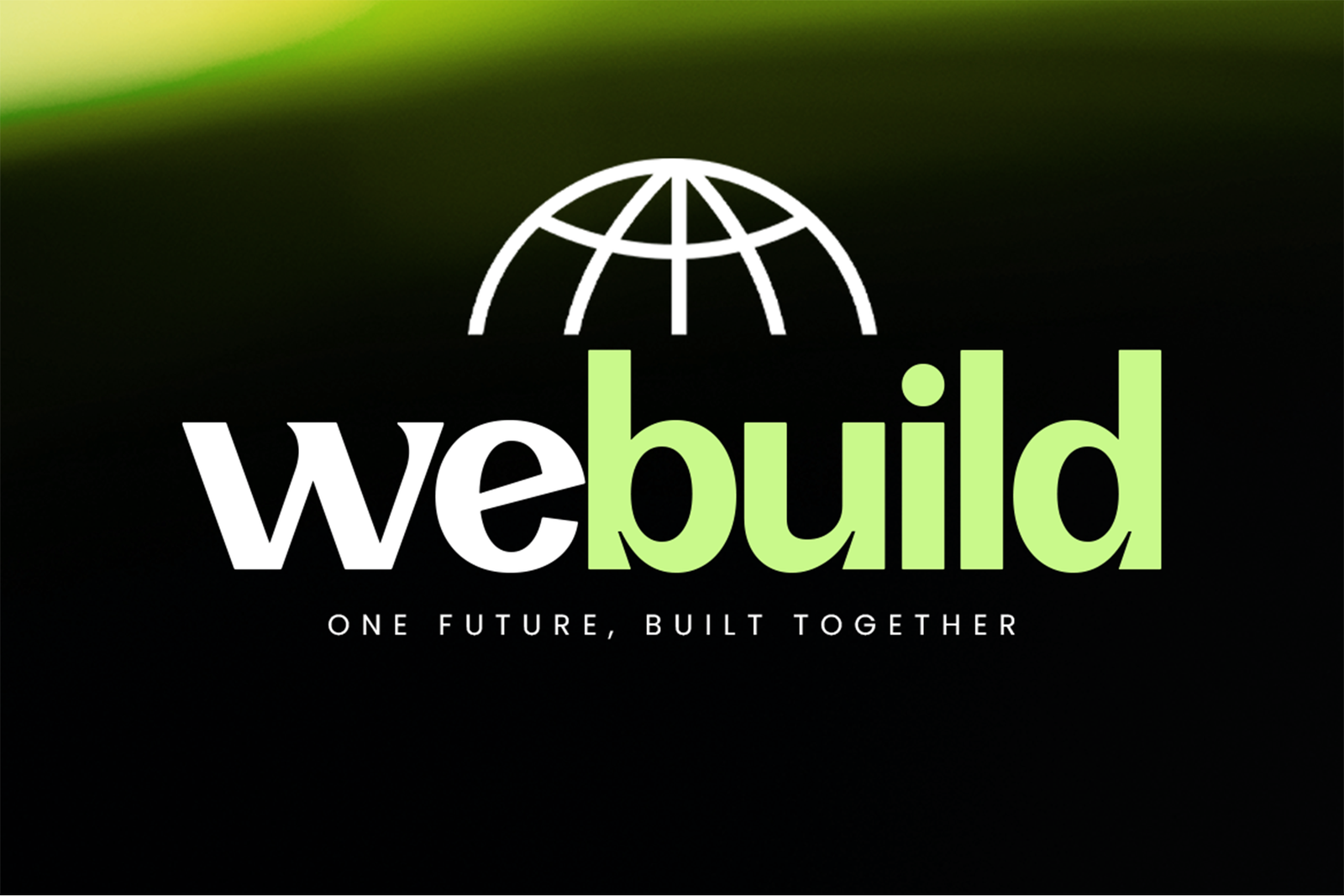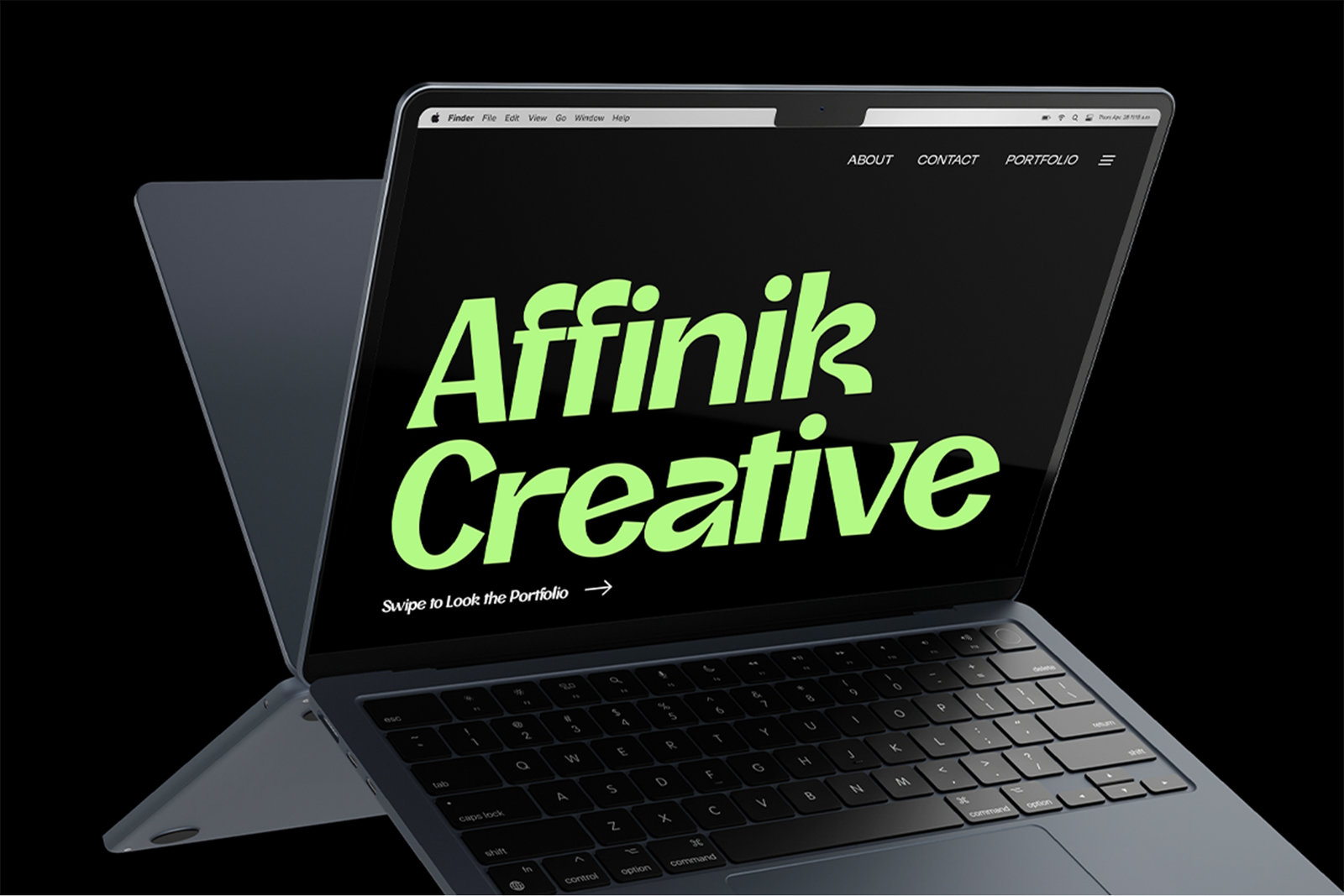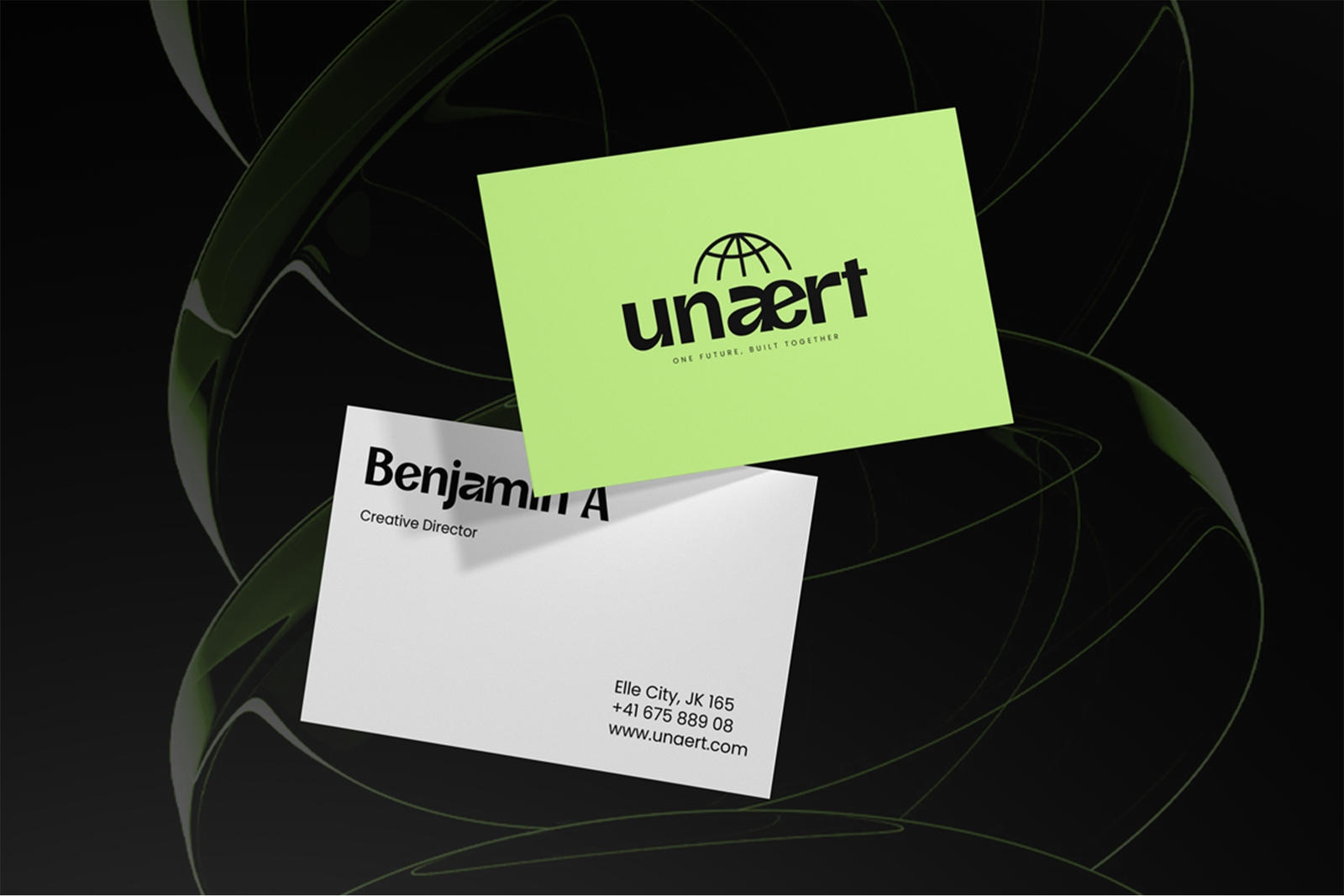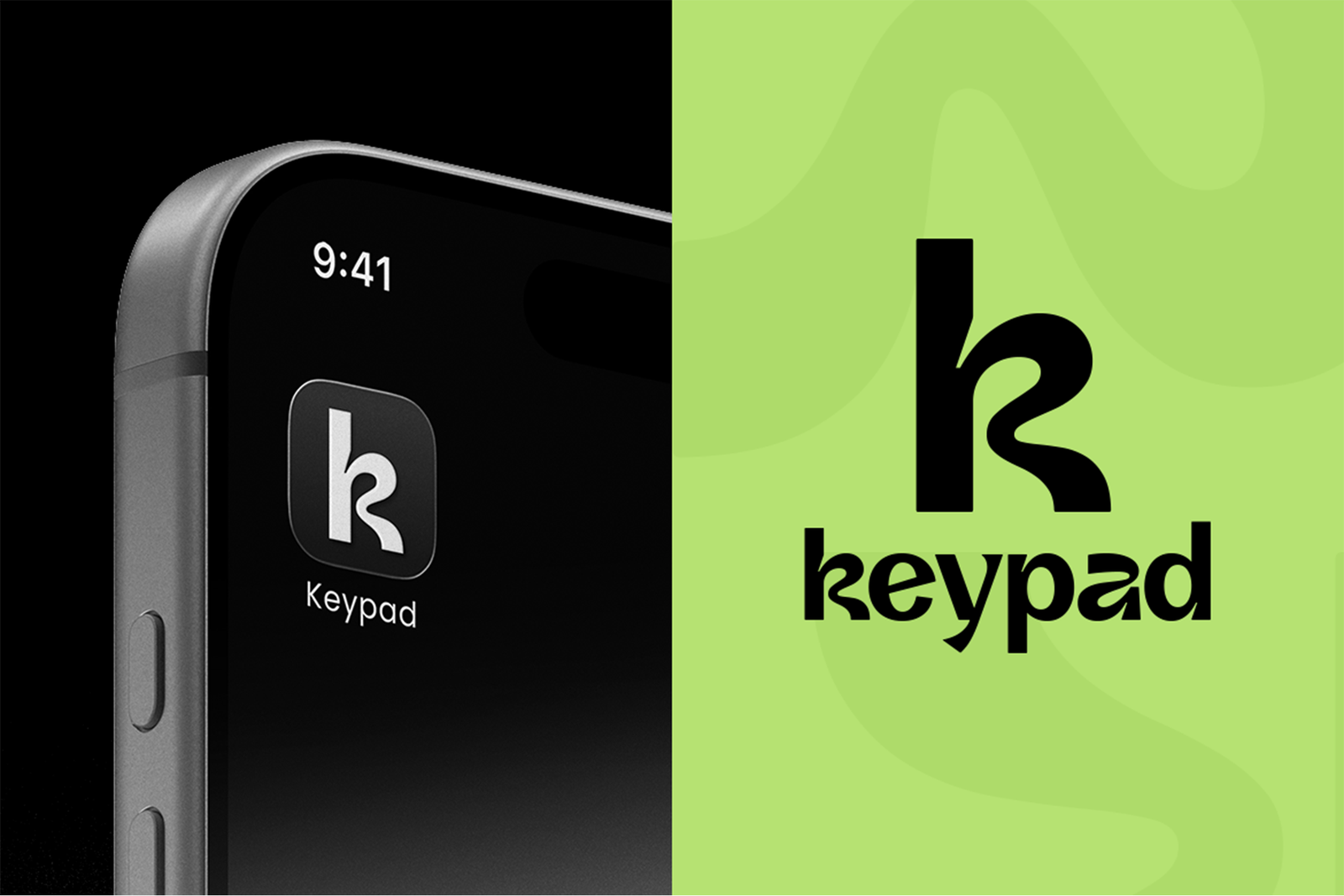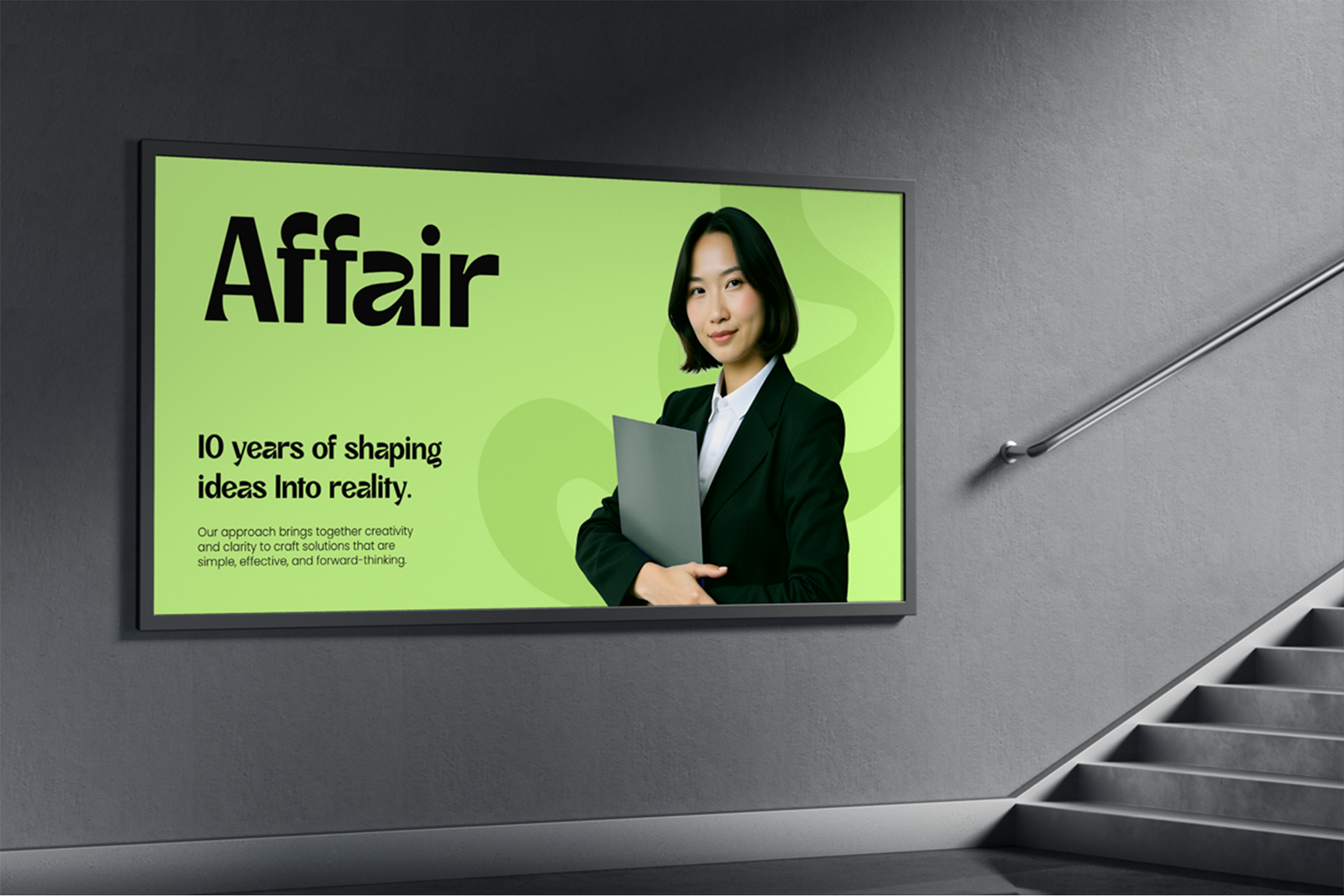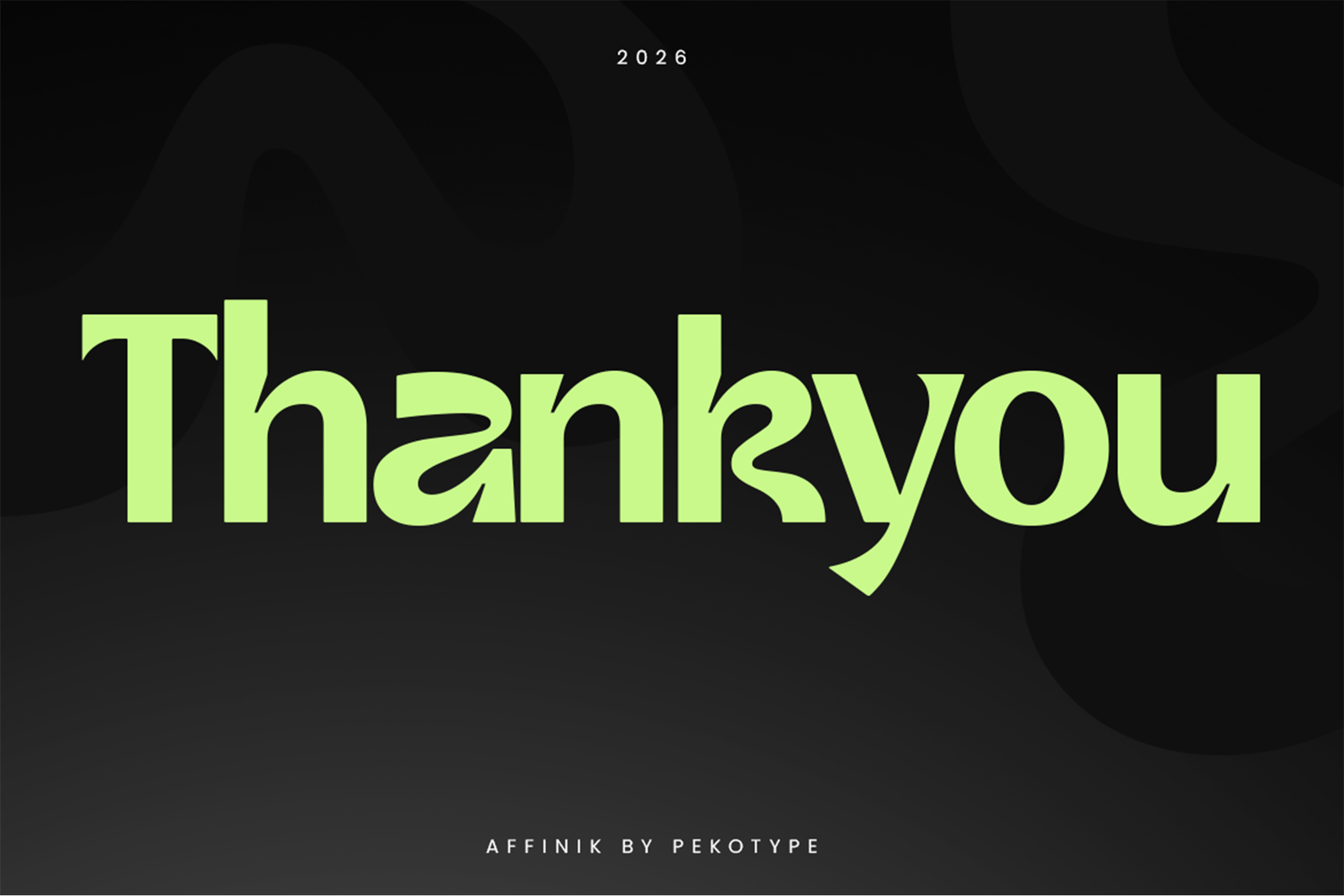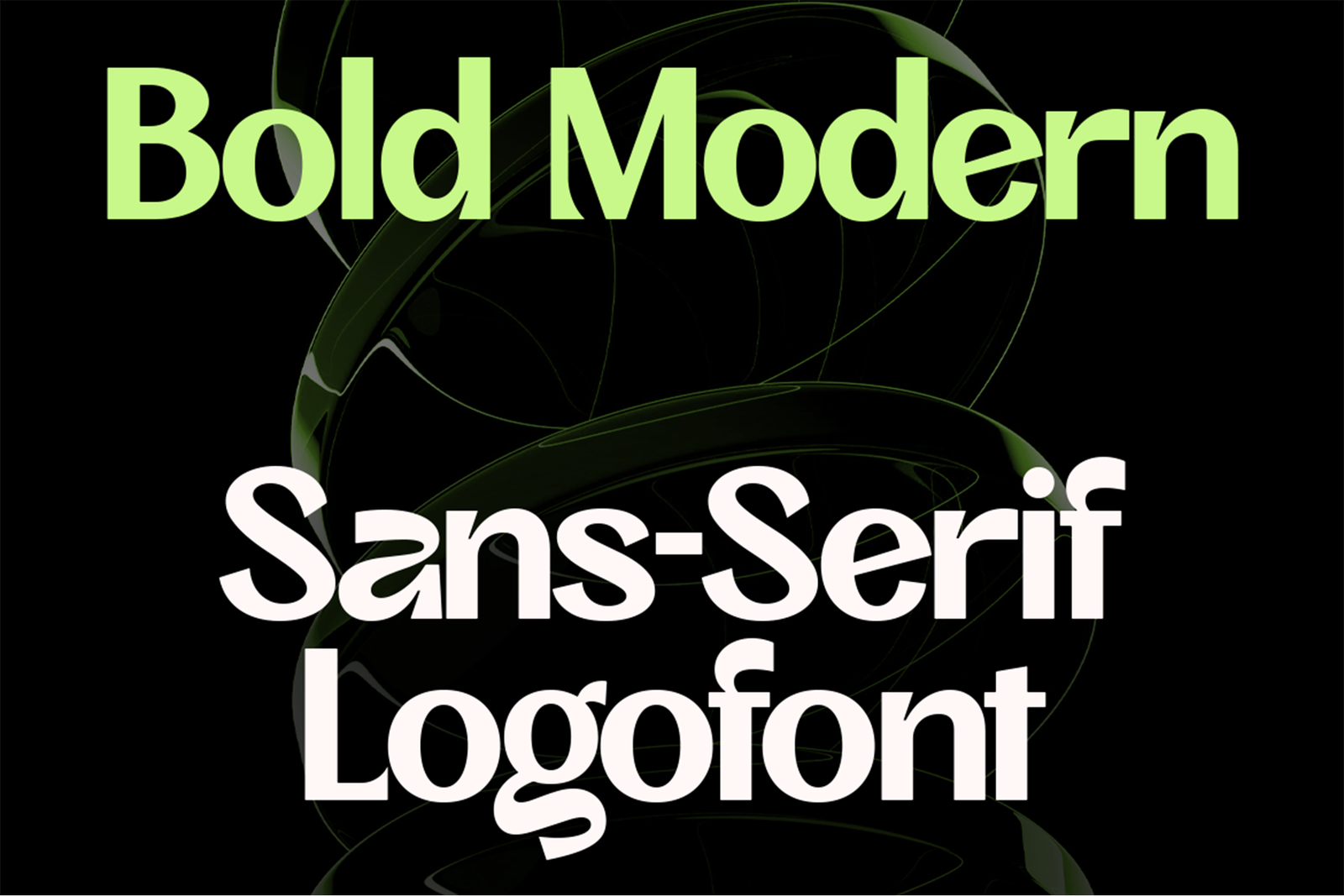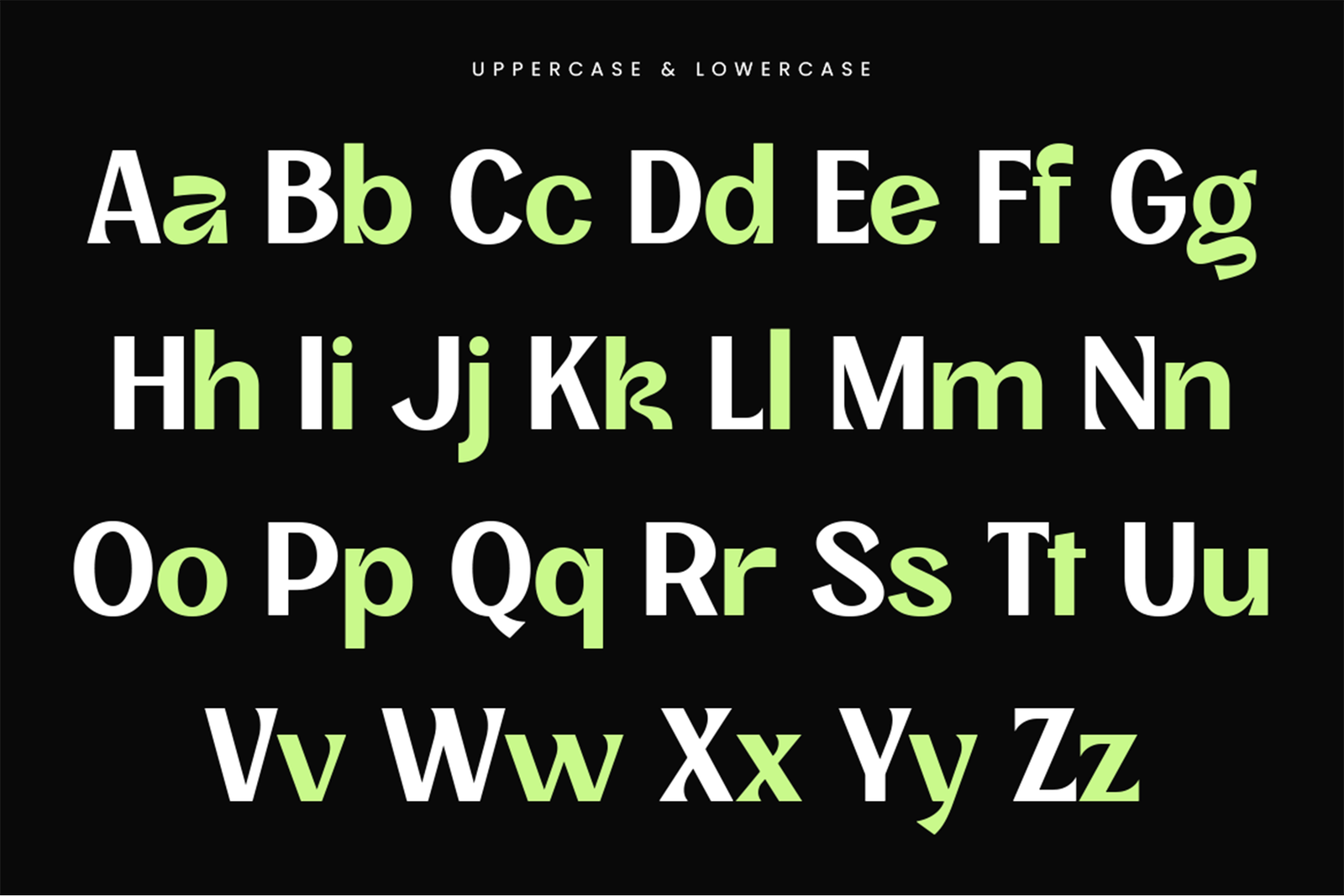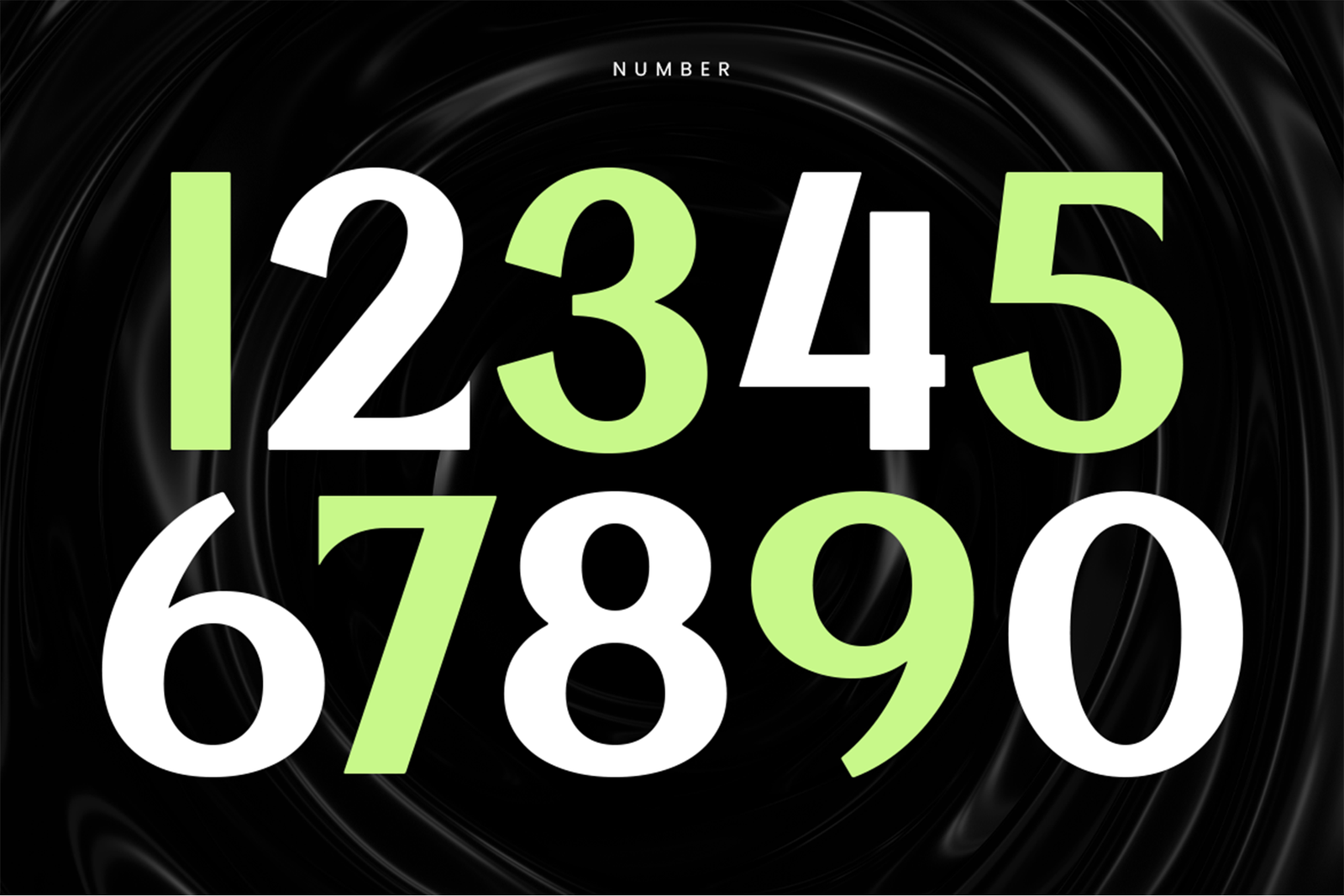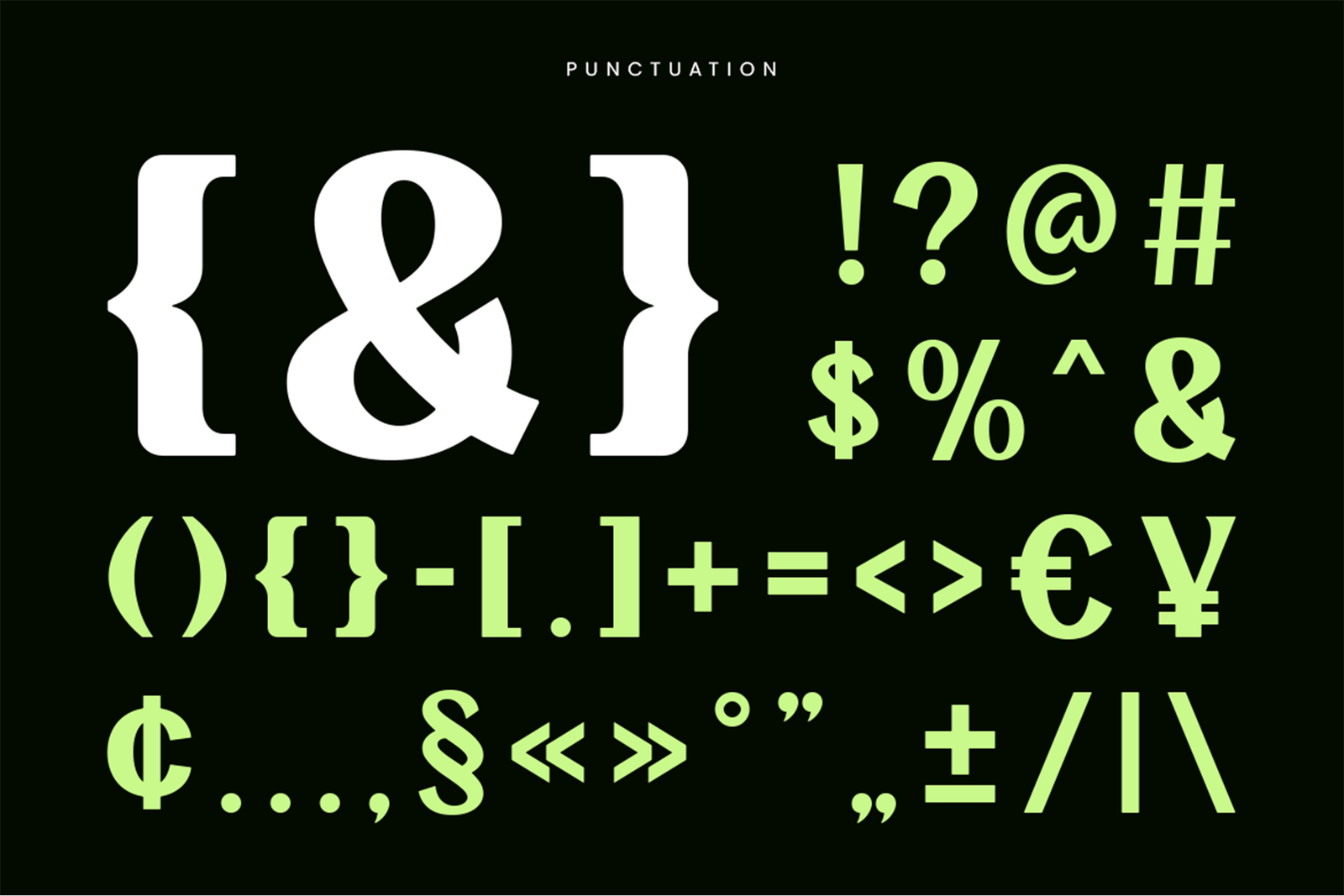
AFFINIK Font – Bold Modern Sans Serif Logofont
AFFINIK Font is a bold modern sans serif logofont designed with clean shapes, smooth letterforms, and a professional visual style. Its slightly geometric structure creates a strong yet friendly personality, making it suitable for brands that want to look modern, reliable, and confident.With a balanced combination of simplicity and character, AFFINIK delivers a clear and stylish appearance across different design applications. The font is easy to read while maintaining a distinctive identity, making it a great choice for contemporary branding projects.AFFINIK works perfectly for logos, branding, technology companies, startups, business presentations, websites, social media content, app interfaces, product advertisements, signage, and modern marketing visuals. Its clean design helps create a professional impression for digital and print projects.The font includes uppercase and lowercase letters, numbers, symbols, punctuation, and multilingual support. Whether used for brand identities, headlines, UI layouts, or promotional materials, AFFINIK adds a modern and polished touch to every project.
- Uppercase & Lowercase Letters
- Numbers, Symbols & Punctuation
- Multilingual Support
- Bold Modern Sans Serif Style
- Clean Geometric Letterforms
AFFINIK Font is an excellent choice for designers who need a versatile, professional, and modern typeface for branding and creative visual projects.